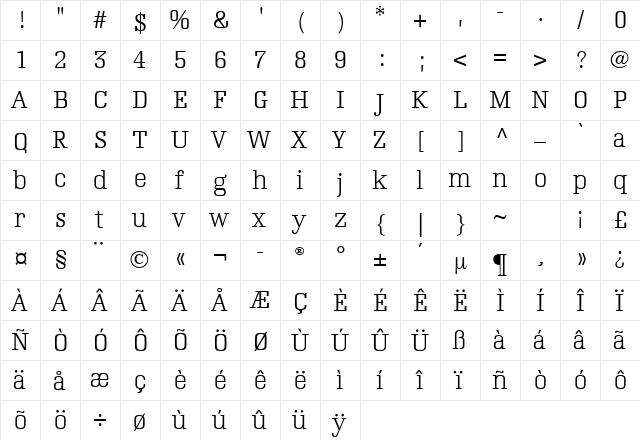
Napoleon Light Font Preview
Napoleon Light
Design Context for Napoleon Typeface
Napoleon takes a measured approach to typography — its balanced proportions and neutral character make it a reliable workhorse for both digital and print work. Its slender proportions lend an understated elegance to any composition.